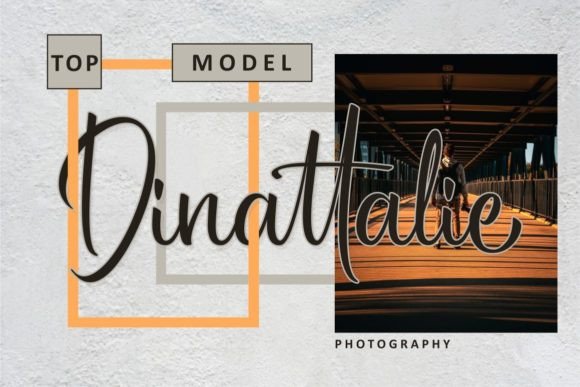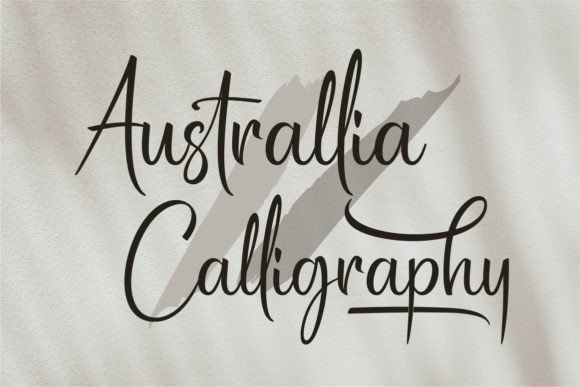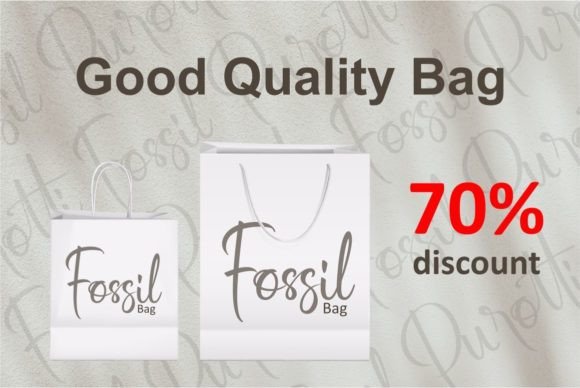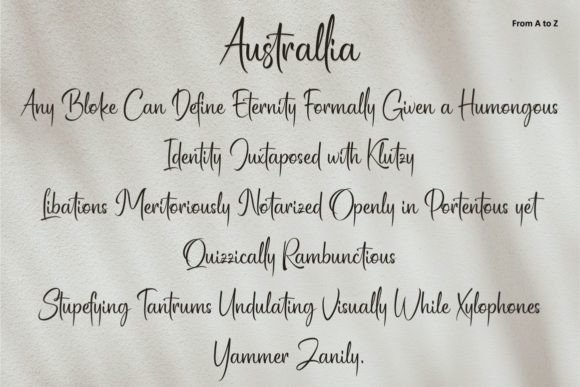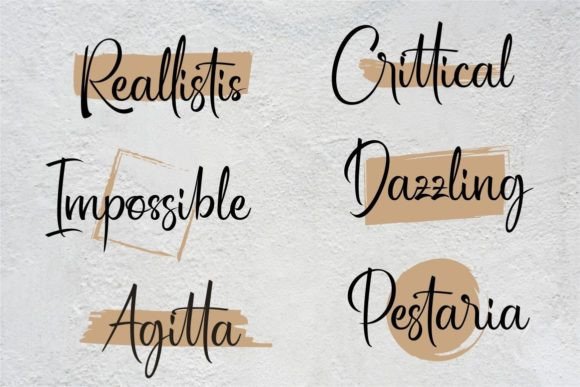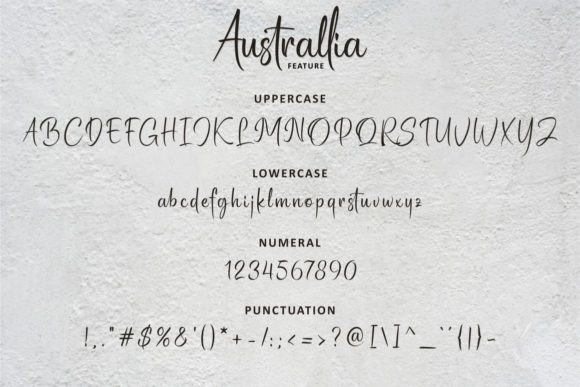
Discovering the Perfect Script: Australlia Font
Have you ever been stuck trying to convey the perfect message through a font, only to end up with something that’s just, well, ordinary? We’ve all been there – the struggle to find the right balance of style and readability is a designer’s worst nightmare. But what if you stumbled upon a font that could change all that? Enter Australlia Font, a strong script font carefully crafted with hand lettering that’s sure to take your designs to the next level.
With its many stylistic alternatives and swashes, Australlia Font gives you the freedom to create your own unique look and feel. Whether you’re working on a branding project, crafting quotes, or designing merchandise and packaging, this font is the perfect companion. Its versatility and style make it a valuable addition to any designer’s toolkit.
- Unique Characteristics: The font features a clean, modern design with a unique blend of elegance and sophistication, making it perfect for use in branding, advertising, and editorial content.
- Scalability: The font is designed to be highly scalable, ensuring that it looks great in both small and large font sizes, from headings to body text.
Australia Font Review
I recently had the chance to work with the Australia Font, and I must say it’s an interesting typeface. Here’s my honest take on what works well and what doesn’t.
- Unique design: The Australia Font has a distinctive and quirky look that can add a touch of personality to your designs.
- Legibility: Despite its unconventional design, the font is surprisingly easy to read, especially at larger font sizes.
- Customizability: The font comes with a range of weights and styles, making it easy to find the right fit for your project.
- Overuse: The font’s unique design can be overwhelming if used extensively. It’s best to use it sparingly to avoid visual fatigue.
- Readability at small sizes: While the font is legible at larger sizes, it can become difficult to read at smaller sizes, especially for those with visual impairments.
- Compatibility issues: I experienced some compatibility issues with older browsers and operating systems, so be sure to test thoroughly.
The Australia Font is a great addition to any designer’s toolkit, but it’s essential to use it thoughtfully and in moderation. With its unique design and customizability, it can add a touch of creativity to your projects. Just be aware of its limitations and test thoroughly to ensure compatibility and readability.
The Australia Font is ideal for designs that require a unique and modern aesthetic. Some common use cases include:
- Infographics and presentations
For optimal results, use the Australia Font in combination with other modern fonts and a clean design aesthetic.